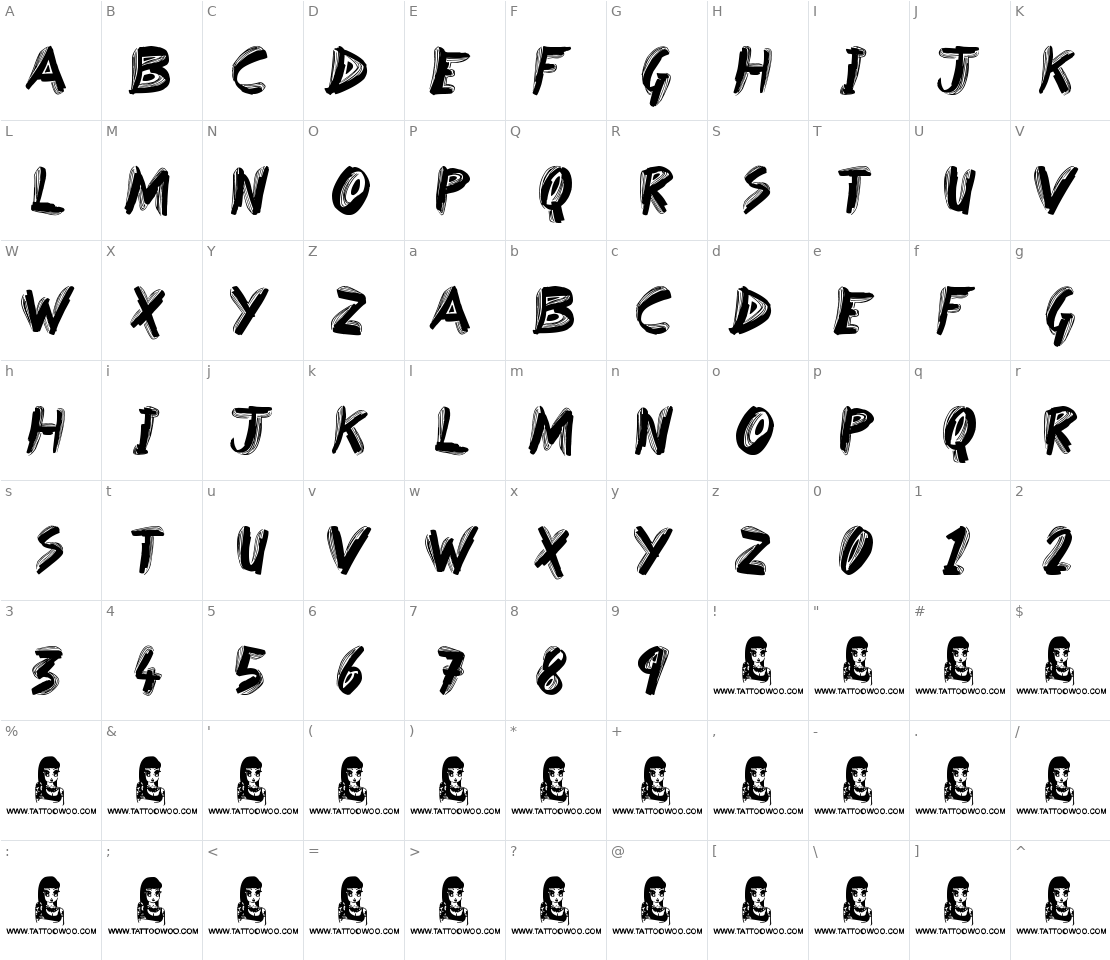
Broken Dreams
Broken Dreams is a bold, grungy display face from Jonathan S. Harris with rough, hand-drawn letterforms that feel like they were scratched into a wall or scrawled on a torn flyer. The distressed edges and uneven strokes give it a raw, dark energy that works for headlines, posters, and album art where polish would be the wrong move entirely.